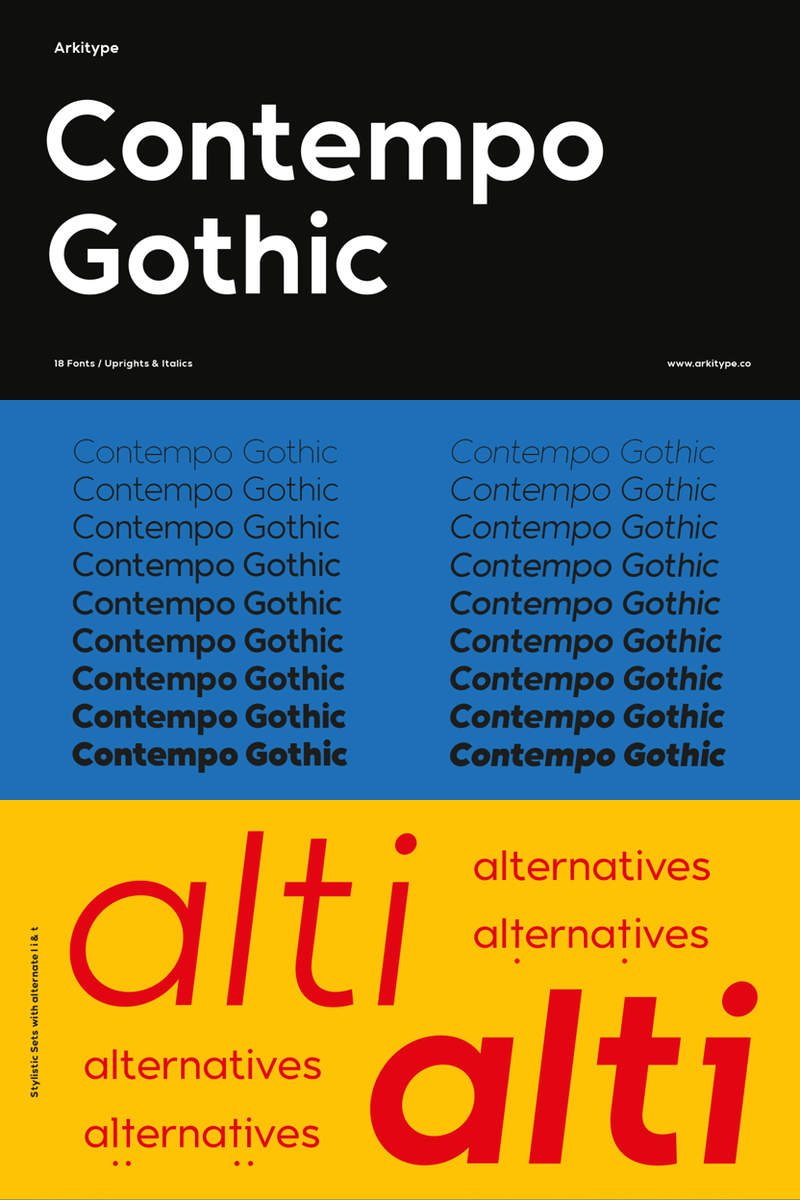
Unveiling the Elegance of Contempo Gothic Typeface
Discover the allure of Contempo Gothic, a contemporary sans serif that seamlessly blends modernity with geometric precision. Boasting a diverse range of 18 weights, including 9 uprights and their corresponding italics, this typeface transcends conventional design boundaries. Immerse yourself in its opentype features, showcasing stylistic sets, tabular figures, fractions, arrows, and ligatures.
With an extensive language support, Contempo Gothic proves to be the epitome of versatility. It effortlessly caters to various design needs, making it an ideal choice for graphic design, display applications, websites, blogs, signage, and corporate identities. Its adaptability extends to publishing and editorial design, ensuring a seamless integration into any creative project.
Contempo Gothic stands as a testament to the marriage of form and function, providing a refined aesthetic for everyday design applications. Whether you're navigating the realms of digital or print, this typeface emerges as a go-to solution, promising an impressive and captivating visual experience.
Unlock Limitless Creative Expression:
Whether designing wedding invitations, establishing brand identities, or embarking on any project that demands distinction, "Crispo" becomes the brush that paints a story of elegance and distinction. With the mastery of pointed pen calligraphy, this font opens doors to limitless creative expression.
A Journey Through the Soul of Calligraphy:
"Crispo" is more than a font; it's a journey through the soul of pointed pen calligraphy. It encapsulates the brushstroke of a skilled hand, the dance of ink on paper, and the unwavering passion behind every character.
Step into the enchanting world of "Crispo" and infuse your designs with the dynamic elegance and strong personality of pointed pen calligraphy.
Unveiling Sunday Thinker: A Typeface Crafted for Creativity
Unlock a tale devoid of grandeur about the genesis of Sunday Thinker's nomenclature—it simply occurred to me on a nondescript Sunday. The moniker resonated with appropriateness and, being unclaimed, seamlessly adorned this font.